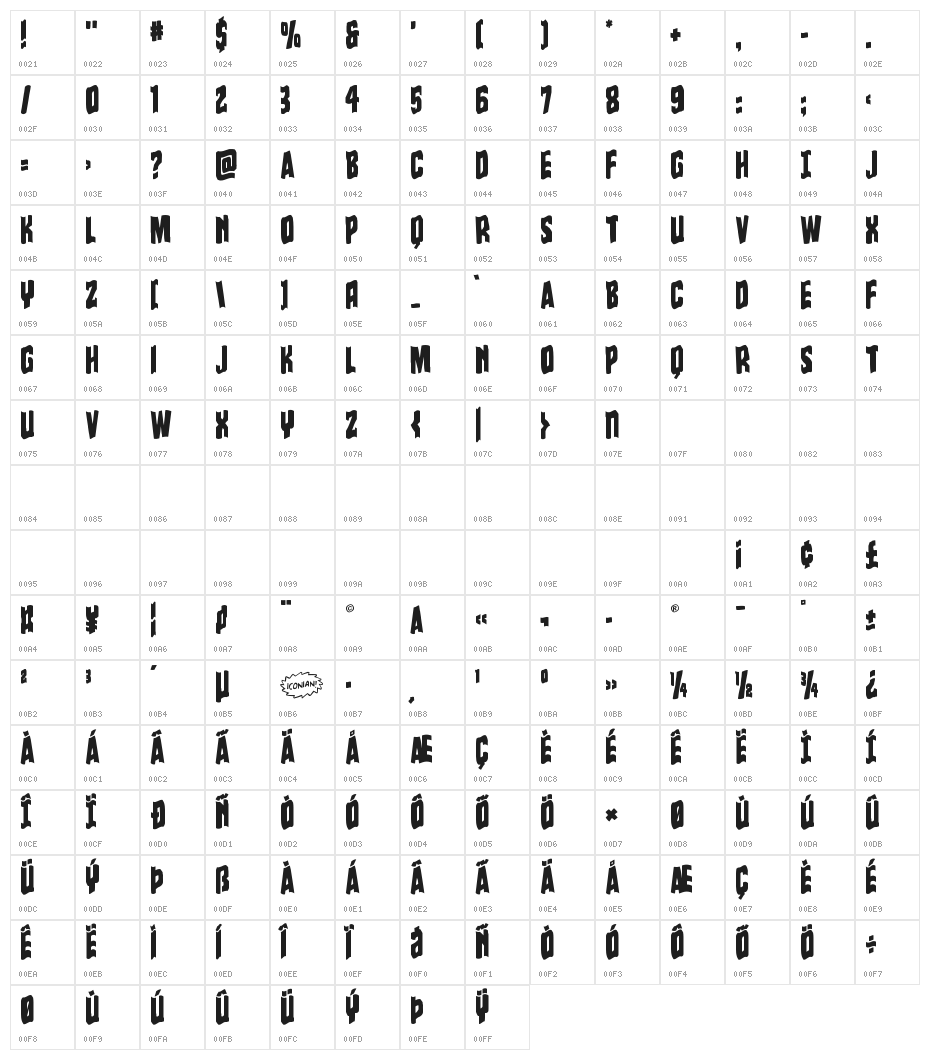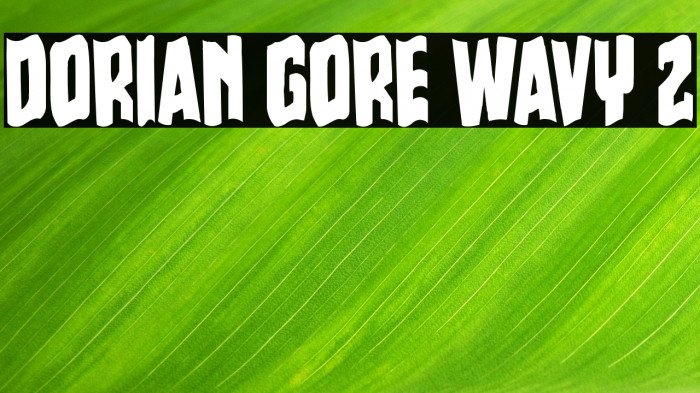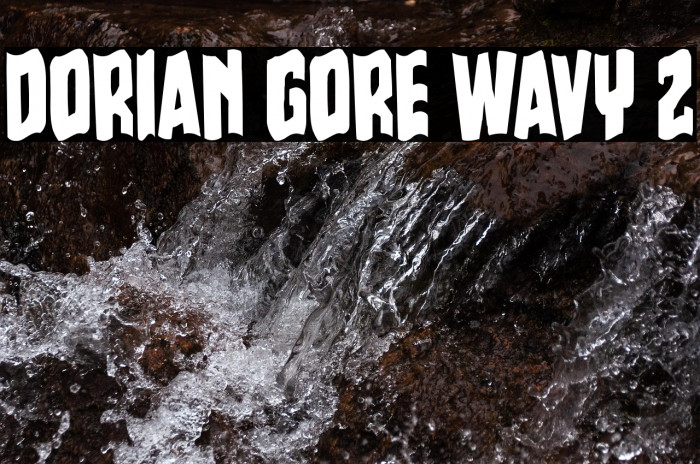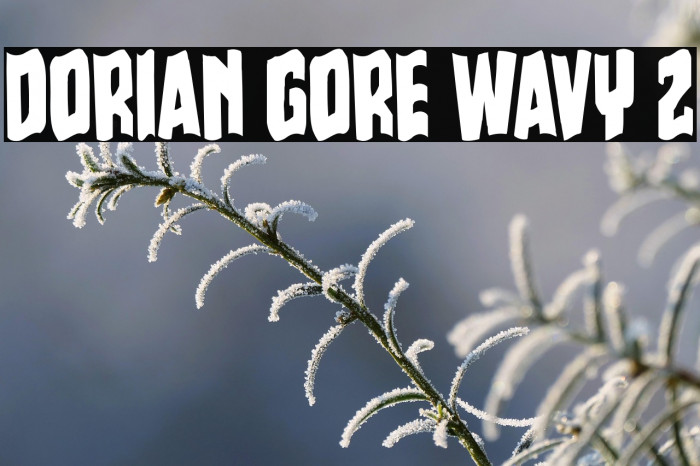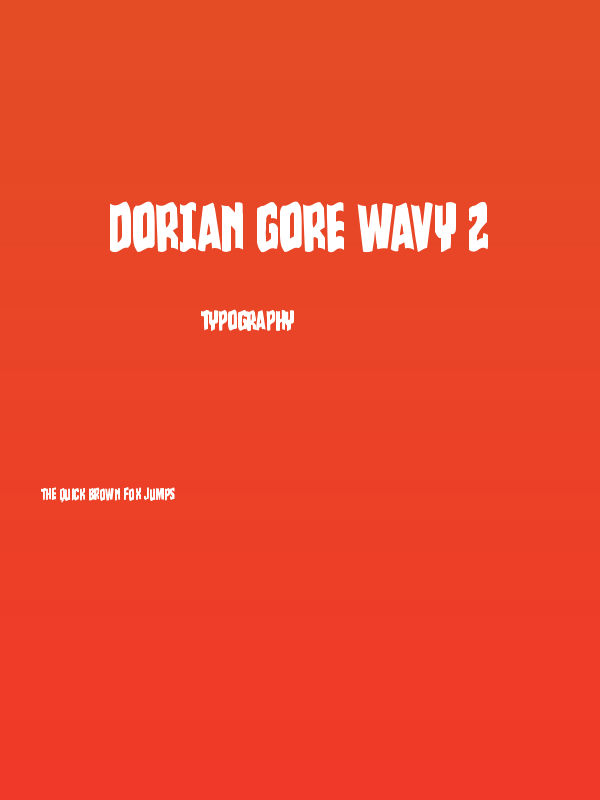
Dorian Gore Wavy 2 Font
Dorian Gore Wavy 2 Description
This font features a bold and wavy design, with each character exhibiting a playful and dynamic form. The letters have a strong presence, with thick strokes and a slightly irregular outline that gives them a hand-drawn appearance. The uppercase and lowercase letters maintain a consistent style, while the numbers and special characters integrate seamlessly into the overall design. The font's unique style makes it stand out, offering a creative and artistic vibe.
| Proposed Projects | Ideal for posters, album covers, branding projects, and any design requiring a bold, artistic touch. |